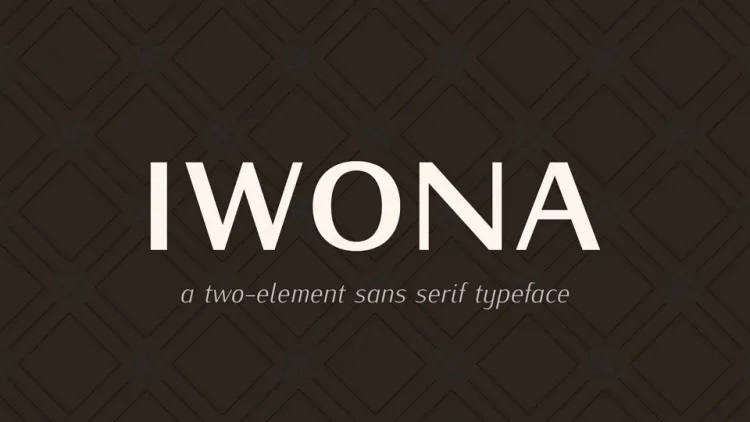
Iwona Font Family
Iwona Font
Iwona Sans Serif Font is a high-contrast monospaced sans-serif, merging a typewriter rhythm with a fashion magazine feel. The Iwona typefaces are a re-implementation of the Kurier typefaces. Kurier was initially designed for linotype typesetting of newspapers and other journals of this sort. The distinction is that there is no ink trap; in other words, there is no negative of the letter cutting into the whitespace around it.
Iwona Sans Serif Font Family